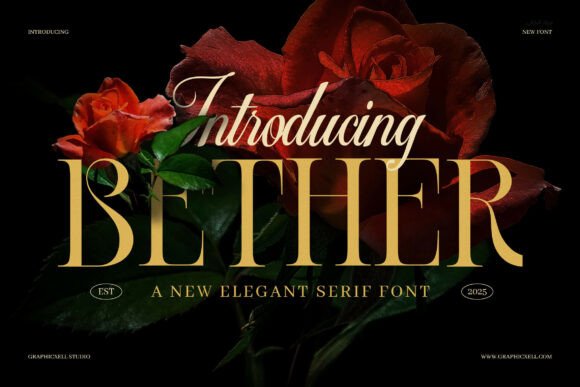
The Bether Serif Font: A Timeless Choice for Modern Designs
Have you ever been in the middle of a design project, and suddenly, you’re stuck on finding the perfect font? I recall a recent experience where I was working on a fashion brand’s logo, and I just couldn’t seem to find a font that captured the right balance of elegance and modernity. That’s when I stumbled upon the Bether Serif font, and it completely transformed my design. In this article, I’ll share my journey with Bether Serif, its features, and how you can make the most of it in your designs.
A Personal Encounter with Bether Serif
I was working on a logo for a fashion brand that needed to exude sophistication and style. After hours of searching through font libraries, I came across Bether Serif. Its clean lines, soft edges, and classic curves immediately caught my attention. I was impressed by how it seamlessly blended traditional and modern elements, making it perfect for a wide range of design applications.
An Honest Review of Bether Serif
What I Love About Bether Serif ✨
- ✅ Timeless Style: Bether Serif has a classic look that never goes out of style. Its soft edges and sharp lines make it versatile for various design projects.
- ✅ Elegant and Modern: The font strikes a perfect balance between elegance and modernity, making it suitable for fashion brands, magazines, and blogs.
- ✅ Easy to Read: Despite its elegant look, Bether Serif remains clear and readable, even in smaller sizes.
- ✅ Versatile Pairing: It pairs well with both bold and minimal designs, giving you flexibility in your creative projects.
While Bether Serif is an excellent font, there are a few things to keep in mind:
- 🤔 Limited Availability of OpenType Features: Bether Serif does not have an extensive range of OpenType features, which might limit some advanced typographic capabilities.
- 🤔 Not Ideal for Extensive Body Text: While it’s readable, Bether Serif is best used for headlines, quotes, and short body text. For longer content, a sans serif font might be more suitable.
The Backstory of Bether Serif
Bether Serif was designed with the goal of creating a font that blends classic elegance with modern simplicity. The designer aimed to produce a typeface that would be versatile enough for various applications, from fashion to digital media. The result is a font that feels both timeless and contemporary.
| Font Name | Bether Font |
| Author | Graphicxell |
Q: Is Bether Serif suitable for body text?
A: While Bether Serif is readable, it’s best used for headlines, quotes, and short body text. For longer content, consider a sans serif font for better readability.